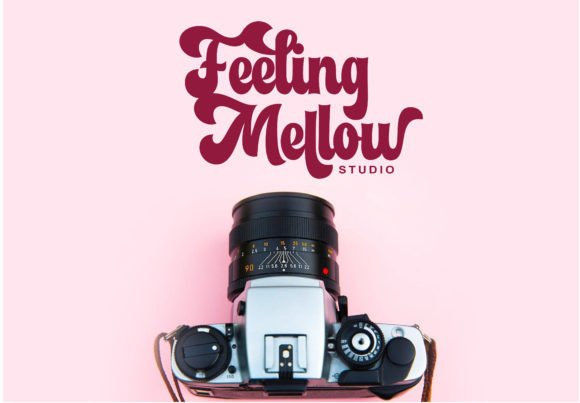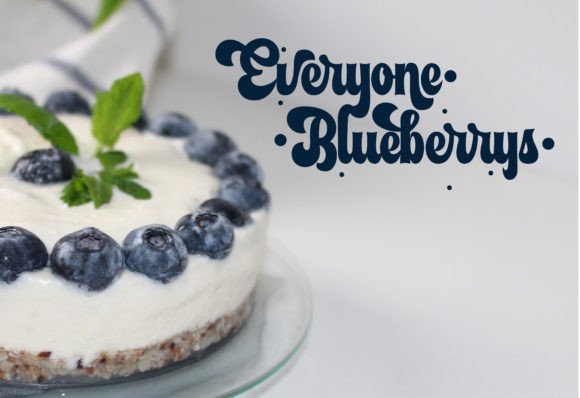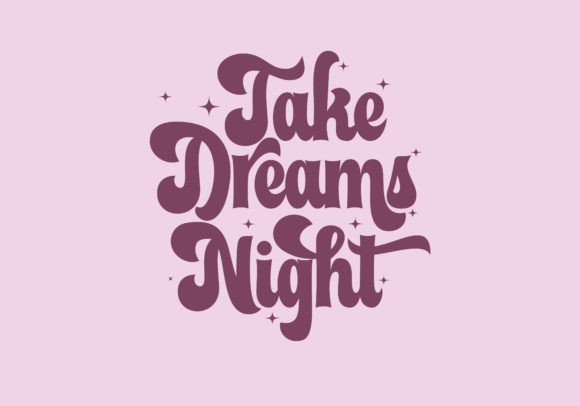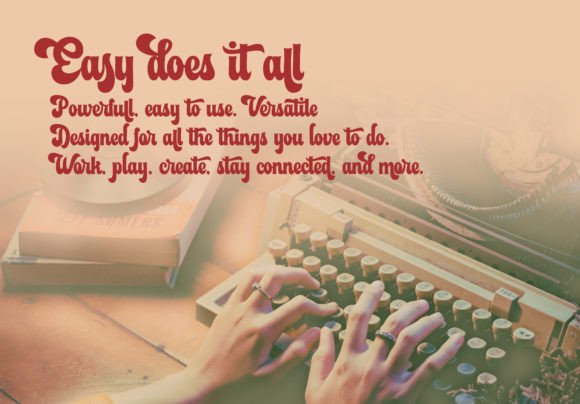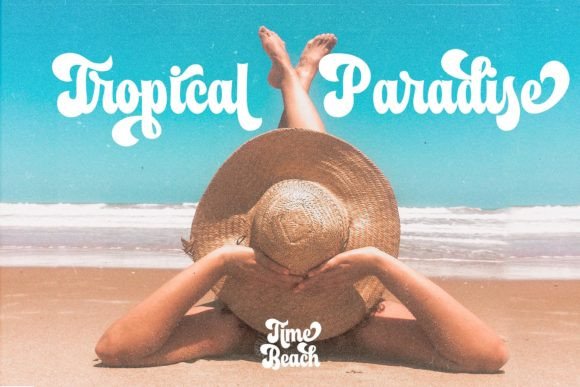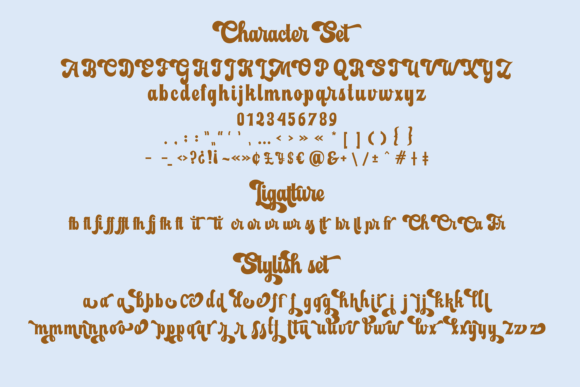
Fruits Cake Font: Elevate Your Designs with a Touch of Retro Elegance
In the world of typography, fonts play a crucial role in conveying the tone and personality of a design. For designers and crafters looking to add a touch of sophistication and whimsy to their projects, the Fruits Cake font is an excellent choice. This contemporary script display font seamlessly blends retro flair with modern elements, making it perfect for fashion branding, editorial designs, and a wide range of creative applications.
The Unique Charm of Fruits Cake Font
Fruits Cake is characterized by its smooth curves and elegant lines, which give it a distinctive and eye-catching appearance. The font’s design is inspired by the classic scripts of the past, but with a modern twist that makes it highly versatile and adaptable. Whether you’re working on a fashion brand’s logo, an editorial spread, or a craft project, Fruits Cake is sure to add a touch of sophistication and glamour.
One of the most exciting aspects of the Fruits Cake font is its endless possibilities for creative expression. With its smooth curves and flowing lines, this font can be used to create a wide range of designs, from elegant and sophisticated to playful and whimsical. Designers can use Fruits Cake to create stunning fashion branding, including logos, business cards, and packaging, while crafters can use it to add a personal touch to their handmade projects, such as scrapbooking, card making, and DIY crafts.
Fruits Cake is PUA (Private Use Area) encoded, which means that designers and crafters can access all the glyphs and ligatures with ease. This feature makes it simple to use the font in a variety of applications, including graphic design software and craft projects. With PUA encoding, you can unlock the full potential of the Fruits Cake font and take your designs to the next level.
Perfect for Fashion Branding and Editorial Designs
Fruits Cake is particularly well-suited for fashion branding and editorial designs, where its elegant and sophisticated appearance can help to elevate the tone and personality of a brand or publication. Designers can use this font to create stunning logos, headlines, and body copy that exudes style and sophistication. In editorial designs, Fruits Cake can add a touch of glamour and sophistication to articles, features, and advertisements.
Tips for Using Fruits Cake Font
To get the most out of the Fruits Cake font, here are a few tips to keep in mind:
- Use Fruits Cake as a display font to add a touch of elegance and sophistication to your designs.
- Experiment with different font sizes and colors to create visual interest and hierarchy.
- Pair Fruits Cake with other fonts to create a unique and eye-catching combination.
- Take advantage of the font’s PUA encoding to access all the glyphs and ligatures.
In conclusion, the Fruits Cake font is a versatile and elegant script display font that is perfect for designers and crafters looking to add a touch of retro elegance to their projects. With its smooth curves, modern elements, and PUA encoding, Fruits Cake offers endless possibilities for creative expression. Whether you’re working on fashion branding, editorial designs, or craft projects, this font is sure to elevate your designs and take them to the next level.